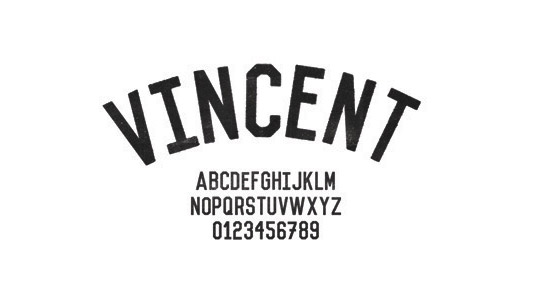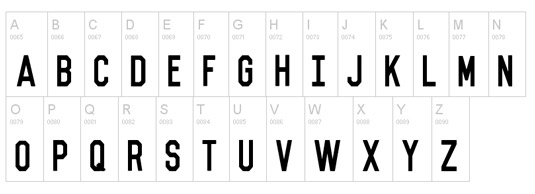
Font of the day: Vincent
Vincent by Ben Suarez
Today's font of choice is Vincent by graphic and product designer for NBC Universal Ben Suarez. Created at the end of last year, this vintage-inspired design was Suarez's first fully functioning typeface.
"Vincent was intended to be used as a title font," explains Suarez. It was "named after my grandfather who drove a 76' Chrysler Cordoba and smoked out of an old wooden pipe. He was rad."